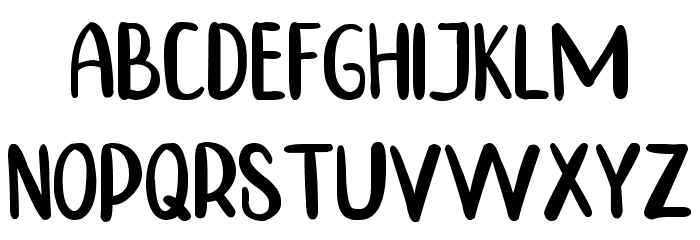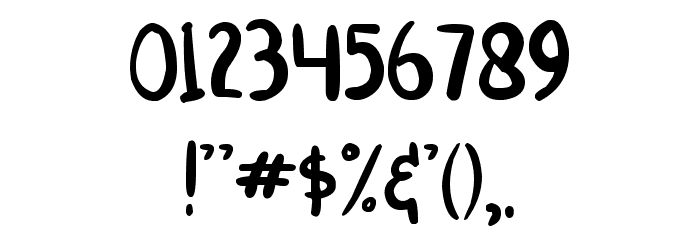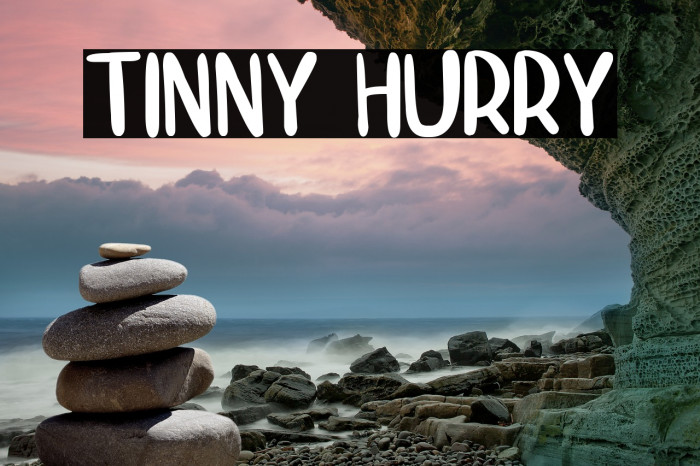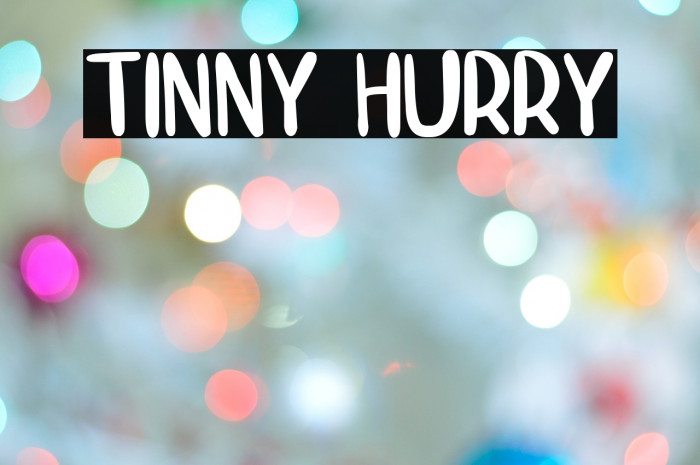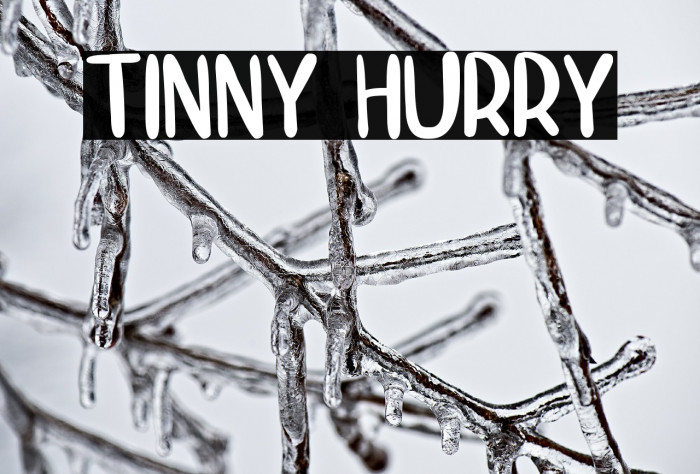
TINNY HURRY Font
This font features a playful and rounded style with a hand-drawn appearance. The characters are bold and slightly condensed, giving them a friendly and approachable look. The strokes are consistent in width, providing a uniform appearance across all characters. The uppercase and lowercase letters maintain a cohesive style, with rounded edges and a slight tilt that adds to the casual feel. The numerals and special characters follow the same design principles, ensuring a harmonious overall look. This font is perfect for projects that require a touch of whimsy and creativity.
A playful, rounded font with a hand-drawn, casual style.
- Proposed Projects: Ideal for children's books, playful branding, greeting cards, and creative posters.
- Overall Style: Casual, Playful